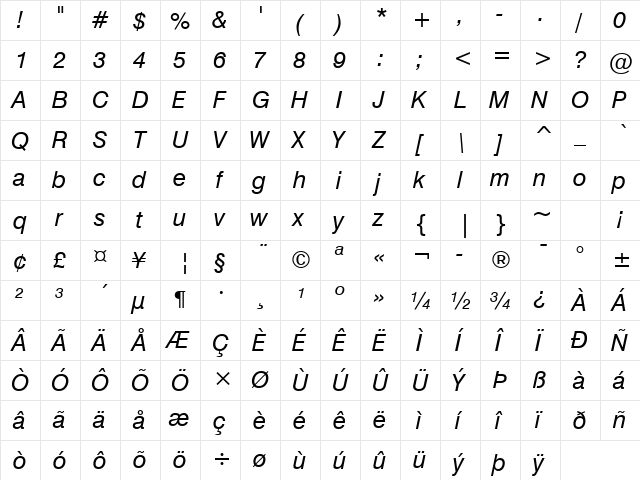
Swis721 BT Italic
Design Context for Swis721 BT Typeface
Swis721 BT takes a measured approach to typography — its balanced proportions and neutral character make it a reliable workhorse for both digital and print work. The dynamic lean of this cut emphasises speed and emphasis in any layout.
Pro Tip: Use Swis721 BT for emphasis, pull quotes, and subheadings where its slanted energy can add rhythm to the layout.